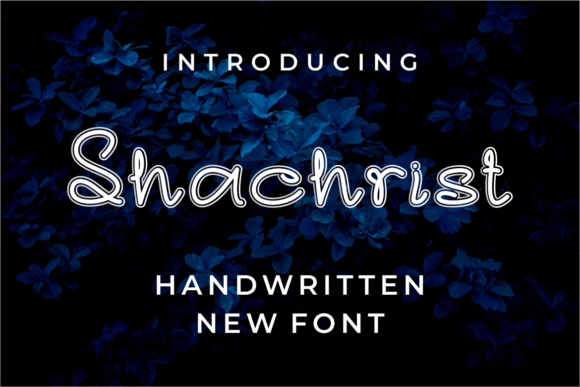
Dive into the world of Shachrist, the whimsical and playful handwritten font that adds a touch of charm to your digital creations. Crafted with meticulous care by maikofarazhatta, Shachrist embodies the essence of joy, friendship, and heartfelt connections.
Imagine your words dancing across the screen, infused with the warmth of a handwritten note. Shachrist's lively strokes and cheerful characters bring a personal touch to your designs, making them irresistible to anyone who encounters them. Let your creativity soar as you explore the endless possibilities that Shachrist holds.
With Shachrist as your creative companion, you can:
- Craft heartfelt apology letters that convey your sincere remorse and mend broken bonds.
- Design enchanting invitations that set the tone for unforgettable events, leaving your guests eagerly anticipating the occasion.
- Create captivating greeting cards that spread love, joy, and warm wishes, making every recipient feel special.
- Personalize your digital designs with a touch of whimsy, making your presentations, social media posts, and website content stand out from the crowd.
Whether you're a seasoned designer or just starting your creative journey, Shachrist is the perfect font to add a splash of fun and personality to your projects. Its versatility knows no bounds, making it an ideal choice for a wide range of applications.